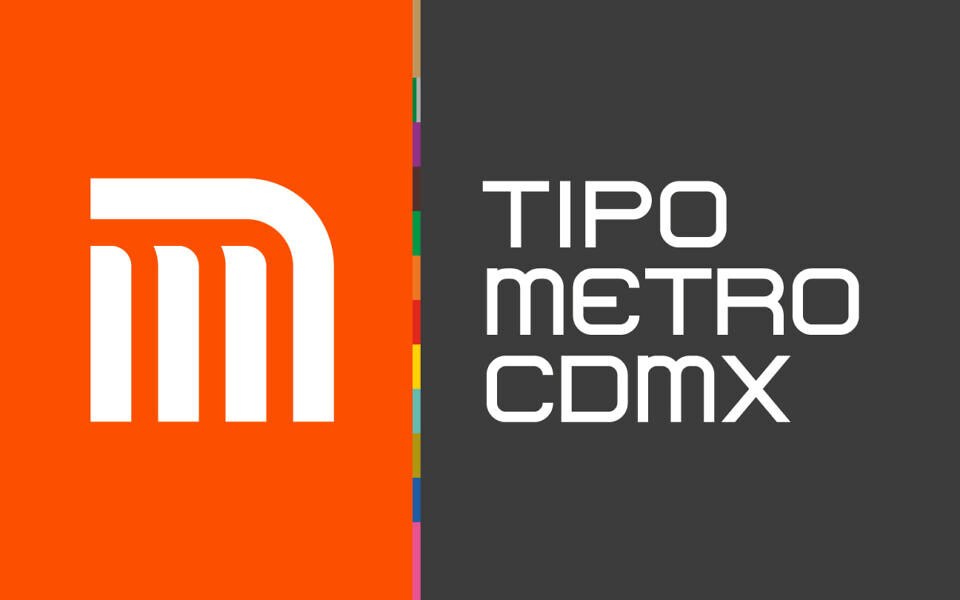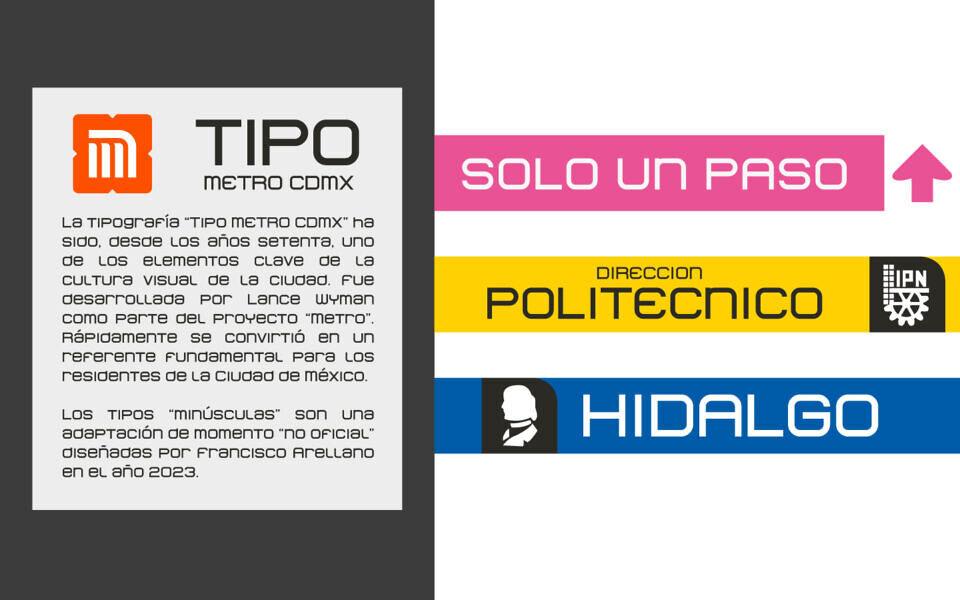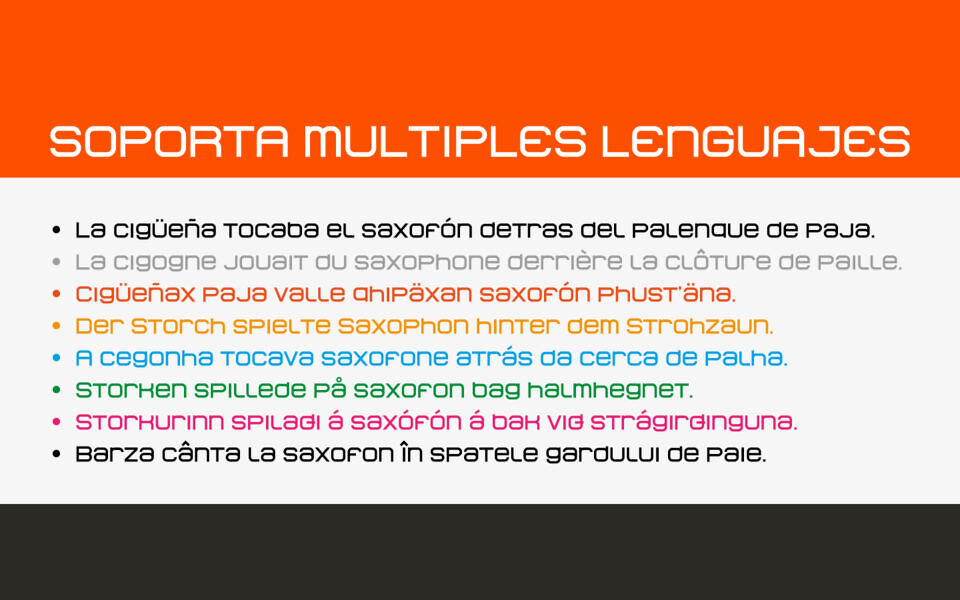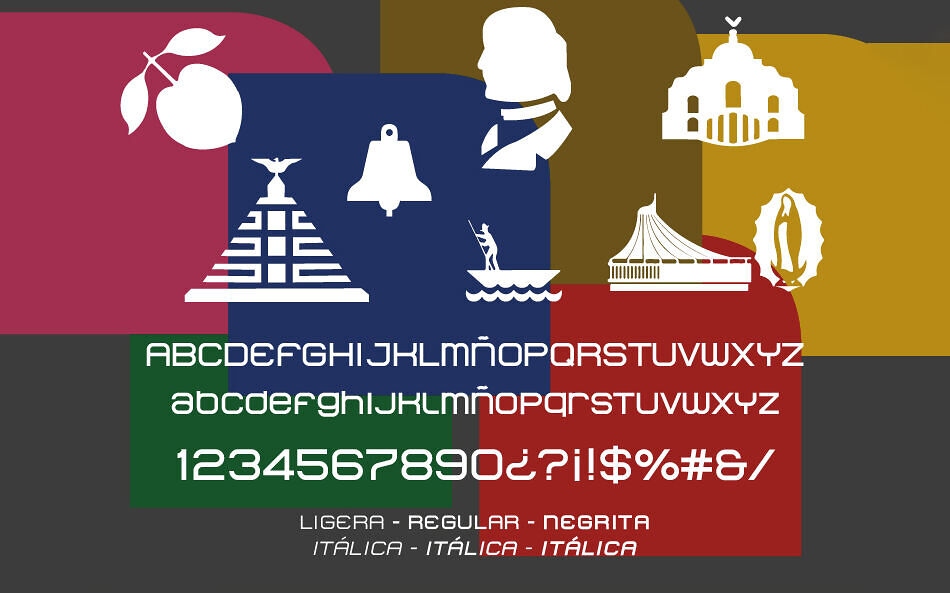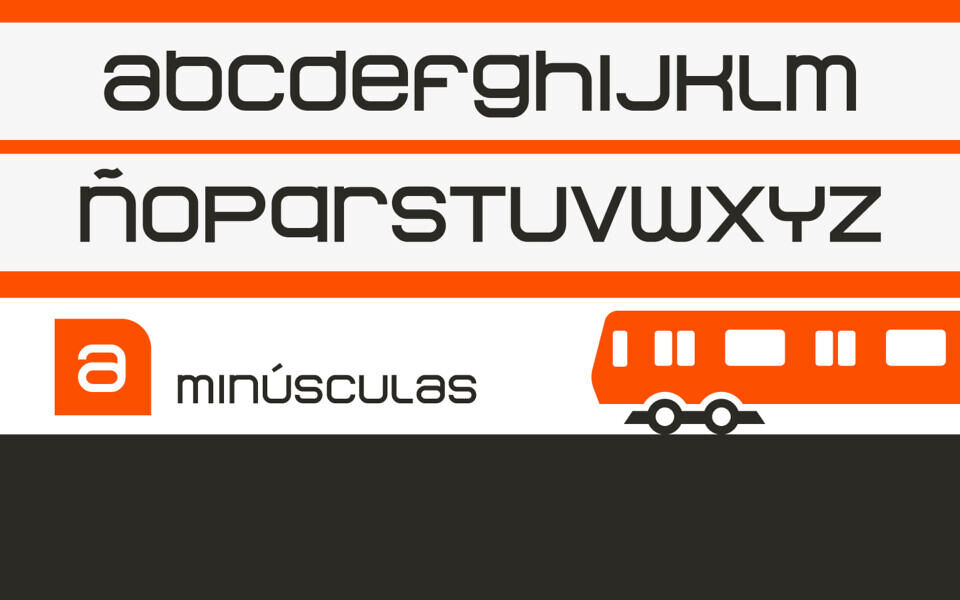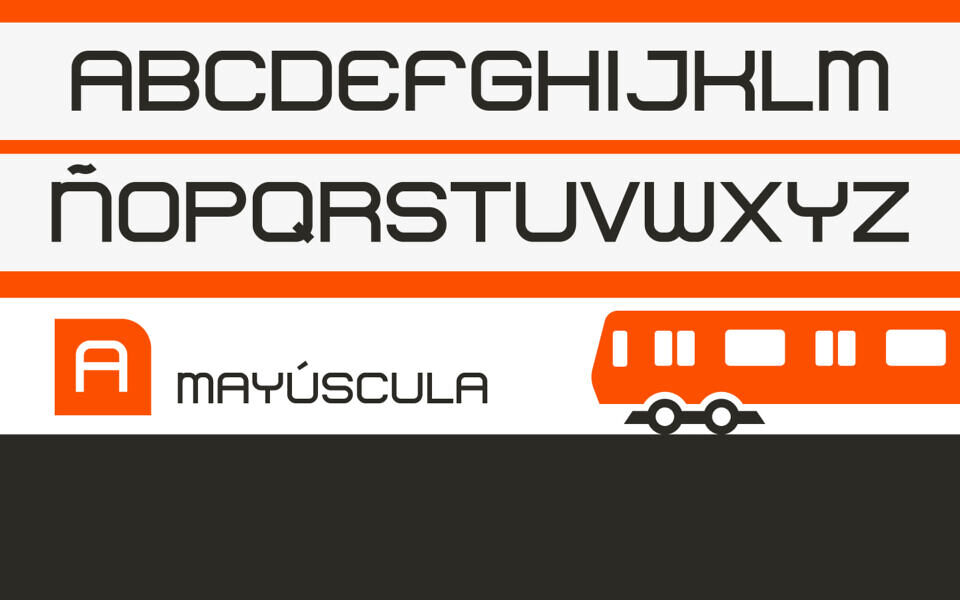
The “Tipo Metro CDMX” typeface was developed by Lance Wyman as part of the “Metro” project since the 1970s, and is one of the key elements of the visual culture of transportation of the Metro Collective Transportation System (STC Metro). This style has become the iconic fundamental of public transportation for the residents of Mexico City.
In this edition, the lowercase types are an “unofficial” adaptation for the Tipo Metro CDMX, enriching the typography with a visual style of highs and lows, so the base design is dispensed with as my own work to emphasize the lowercase types exclusively, In addition, some accentuation characters have been added, extending their use to other languages. The types are a new proposal by Ixipcalli in the year 2023.
On September 2, 2025, a new update was released, adjusting margins for two erroneous characters and adding light, bold, and italic variants.